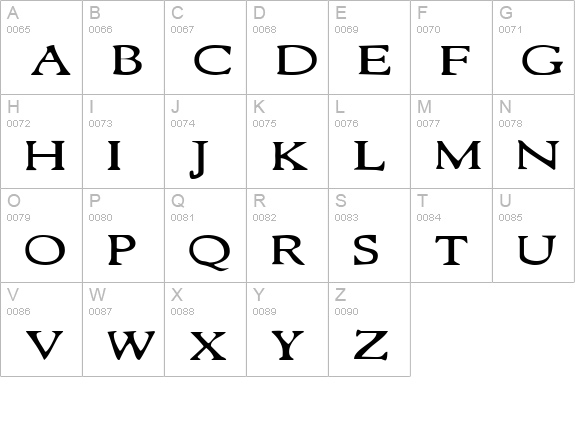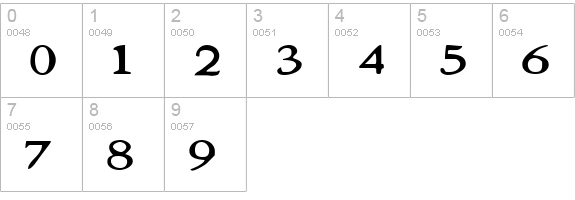
Ready for my Closeup Font Details
Introducing Ready for my Closeup, a stunning font that exudes elegance and sophistication. With its delicate curves and refined serifs, this font is perfect for adding a touch of glamour to any design project. Whether you're creating a logo, designing a wedding invitation, or crafting a magazine spread, Ready for my Closeup will make your work shine. But what sets Ready for my Closeup apart is not just its beauty, but also its accessibility. This font is available for free download at FontsMarket.com, making it an excellent choice for designers on a budget or those simply looking for high-quality fonts without breaking the bank. With Ready for my Closeup, you can achieve professional-looking results without spending a dime. The versatility of Ready for my Closeup is another reason why it's a must-have font in your arsenal. It works flawlessly in both print and digital mediums, ensuring that your design looks impeccable across all platforms. Its legibility and readability make it suitable for a wide range of applications, from headlines and body text to decorative elements and branding. Ready for my Closeup is designed with meticulous attention to detail, resulting in a font that is both visually striking and easy to work with. Its smooth curves and balanced proportions create a harmonious aesthetic that captures the essence of classic typography. Whether you're going for a vintage-inspired look or a contemporary design, Ready for my Closeup will effortlessly complement your vision. So why wait? Elevate your design projects with the timeless beauty of Ready for my Closeup. Download this font for free at FontsMarket.com and unlock its full potential. With its versatility, elegance, and accessibility, Ready for my Closeup is a font that will undoubtedly become an invaluable asset in your creative toolbox.